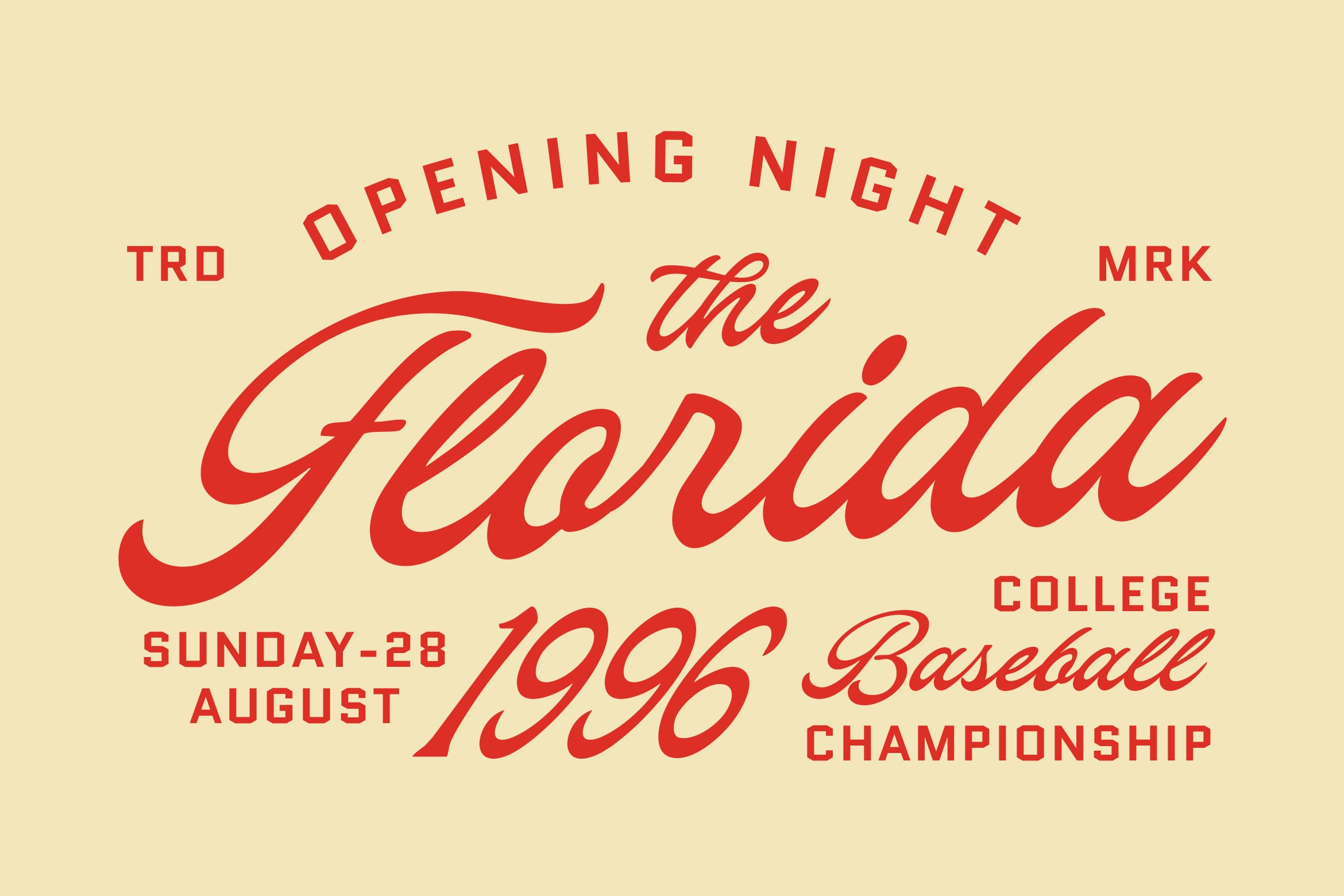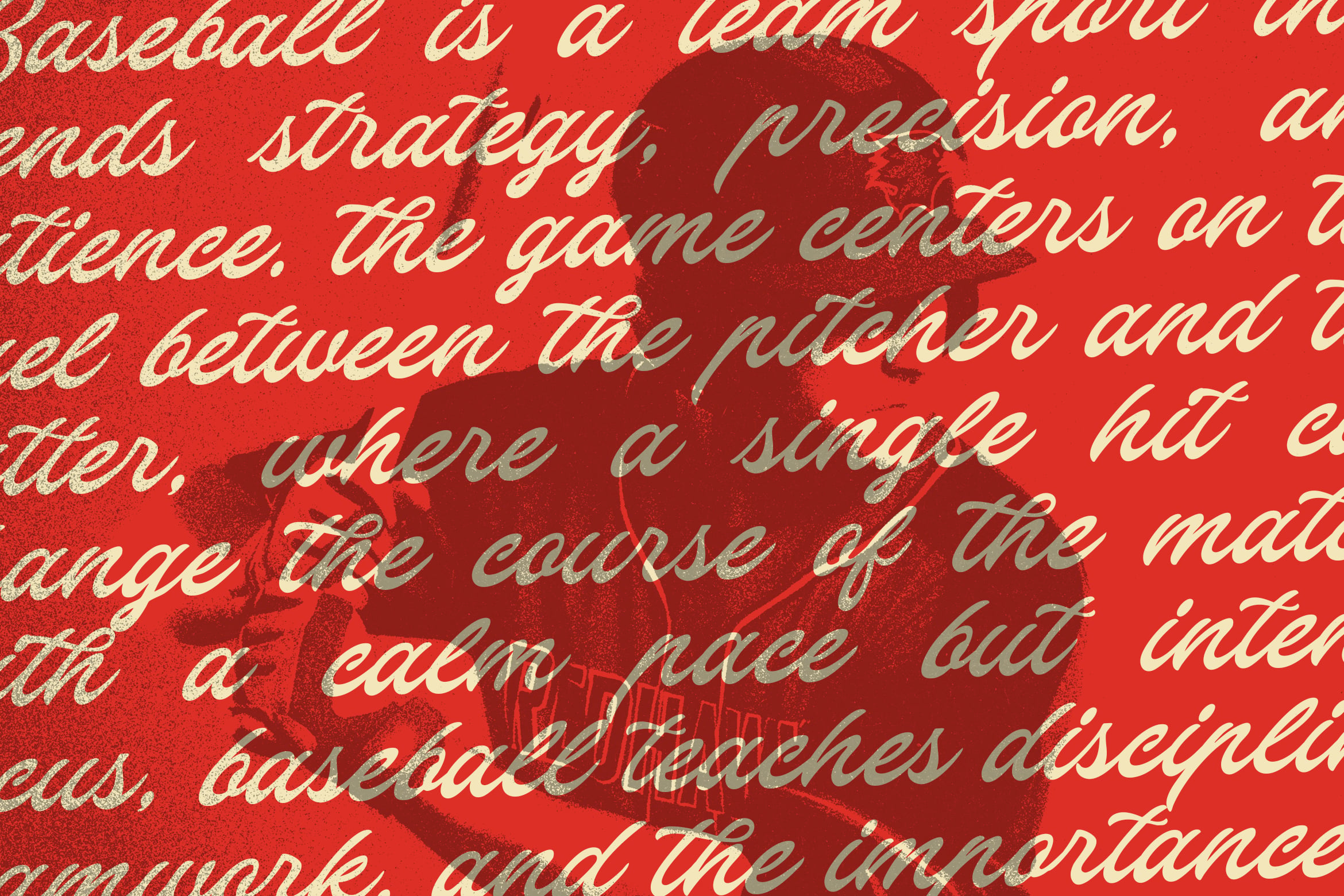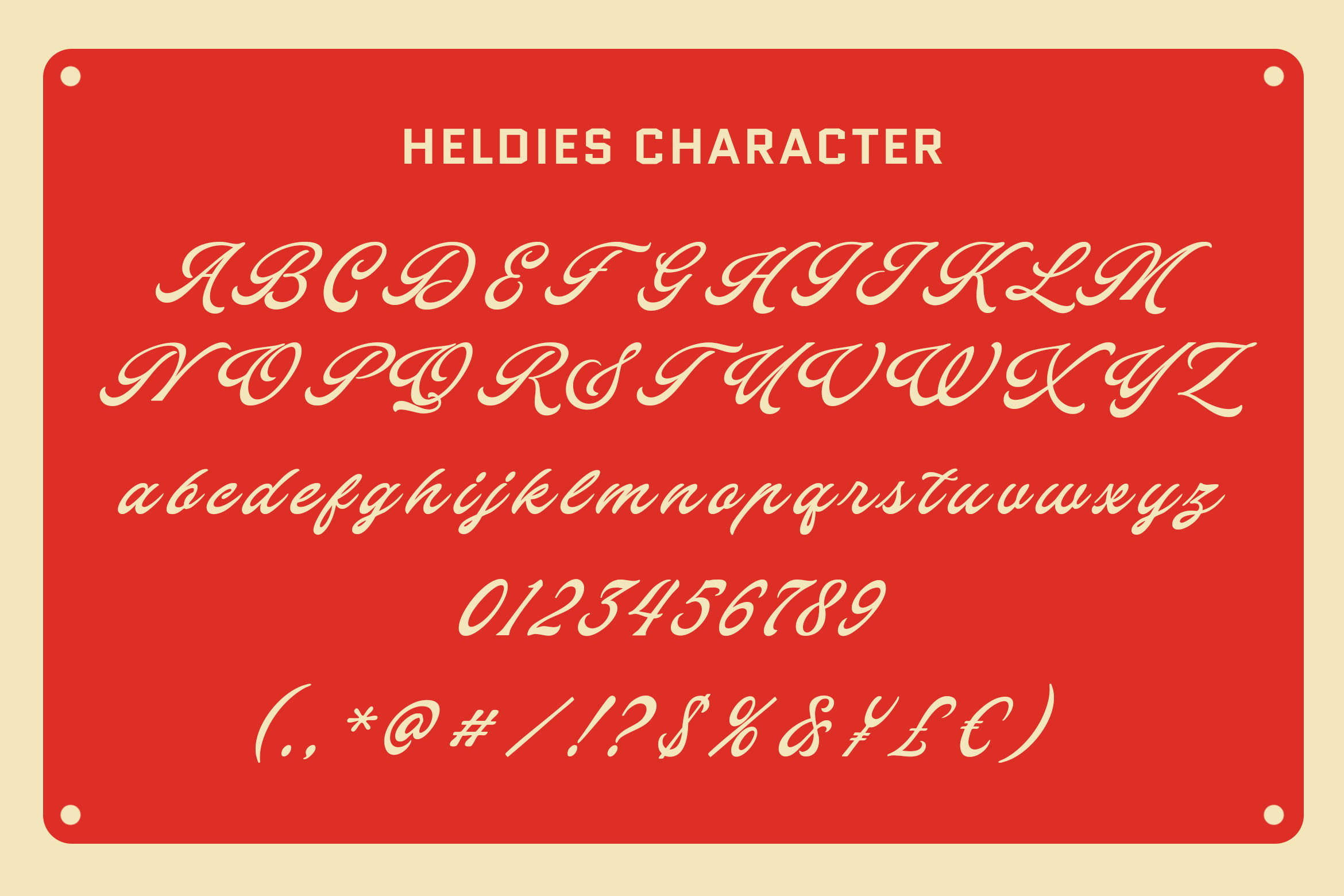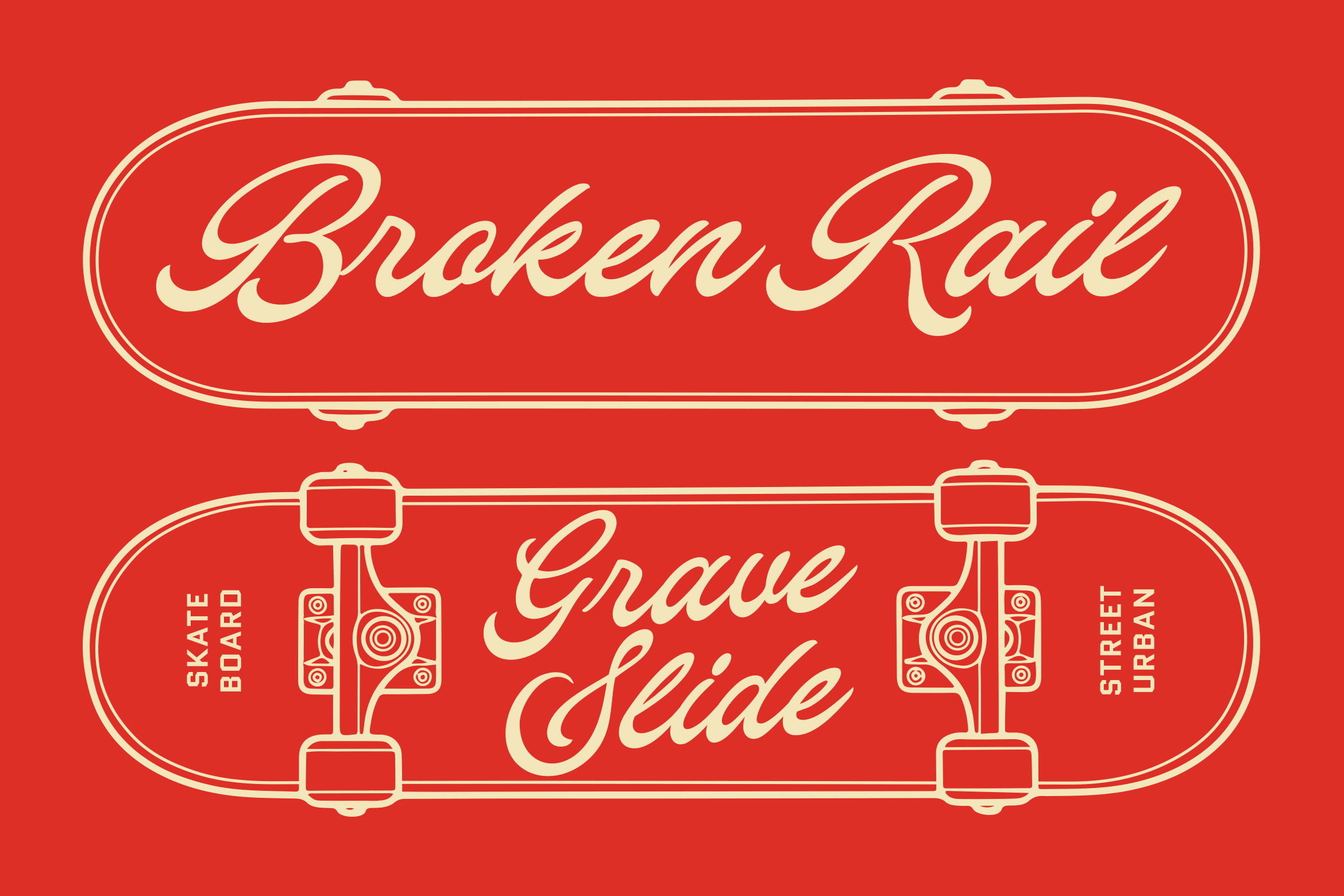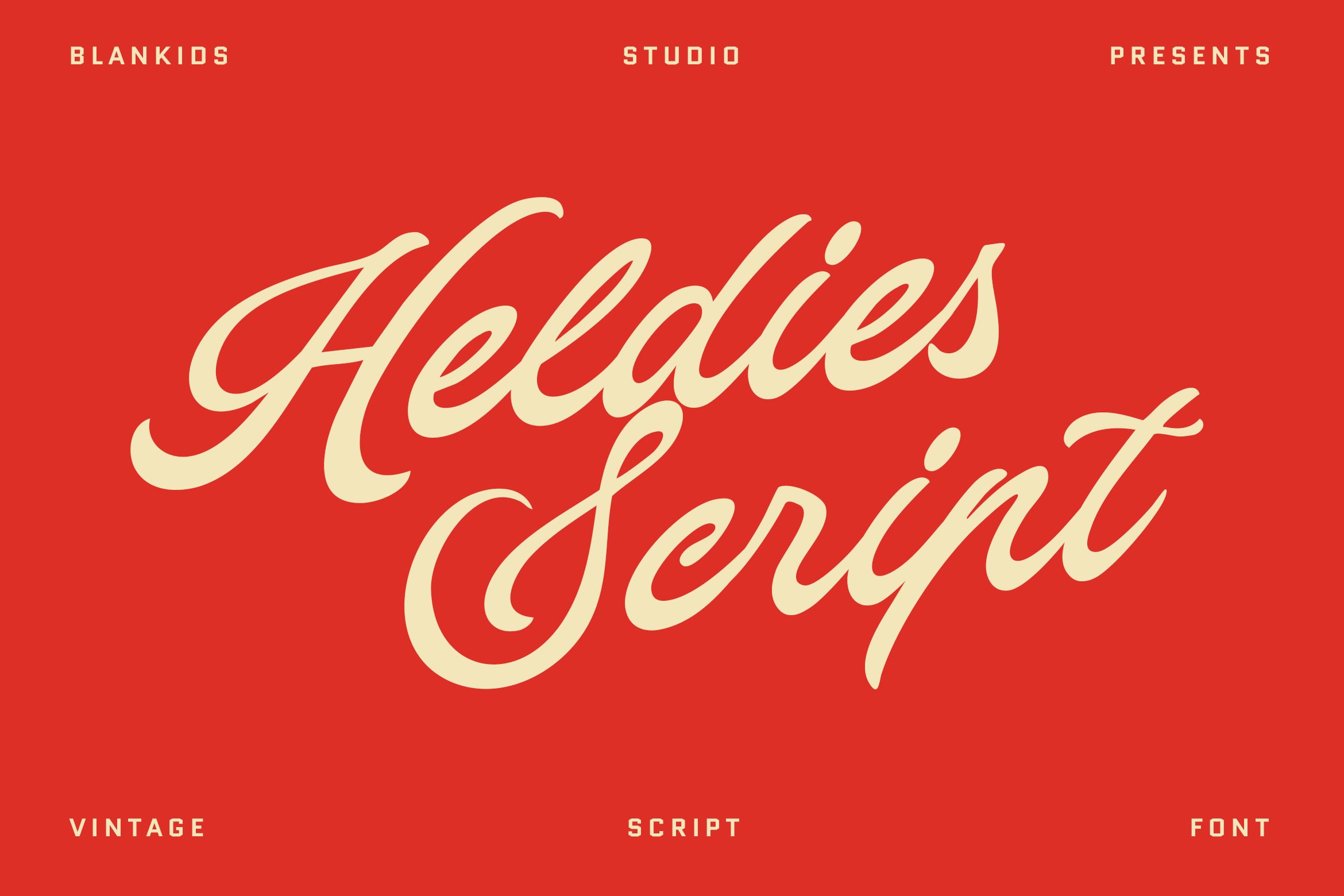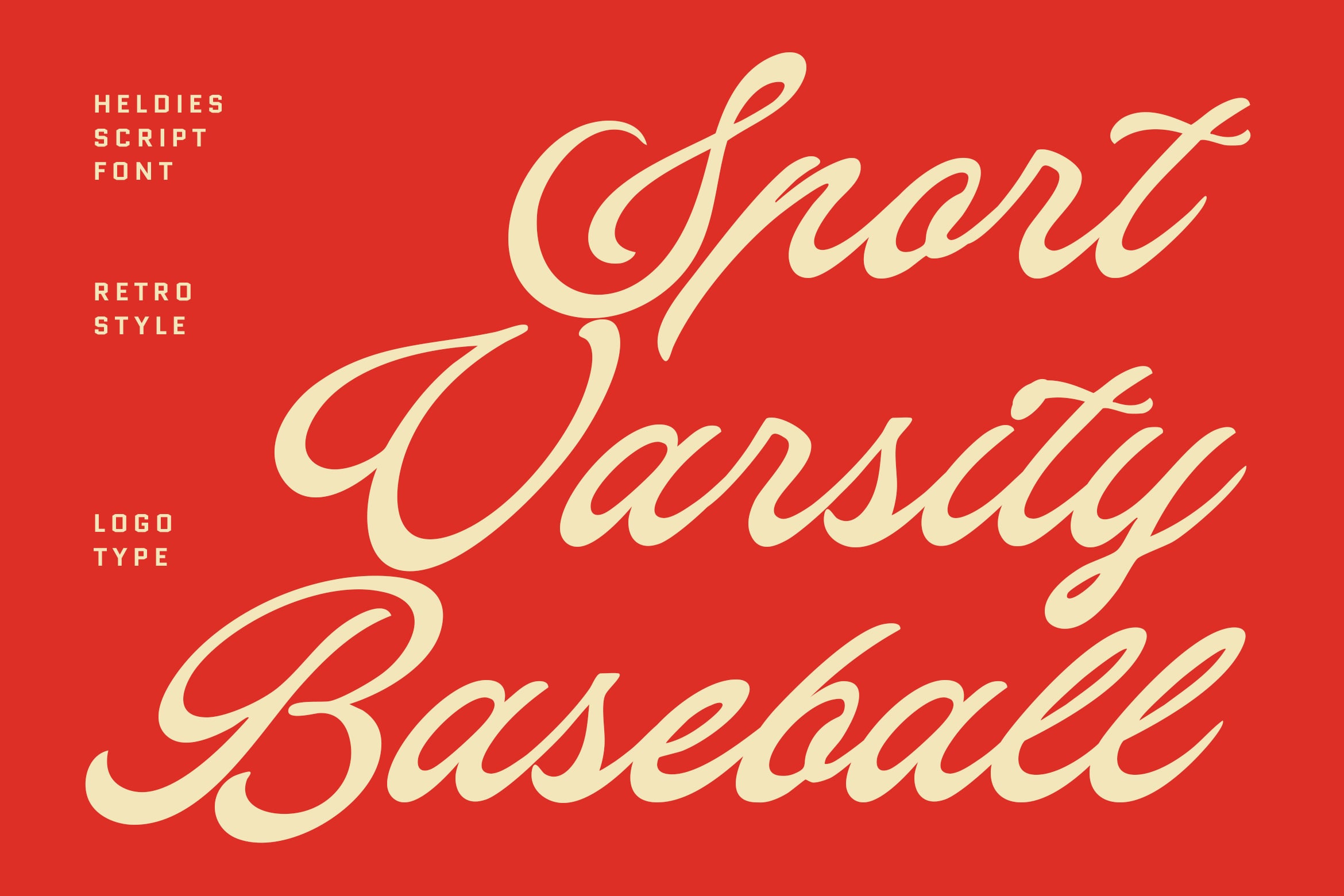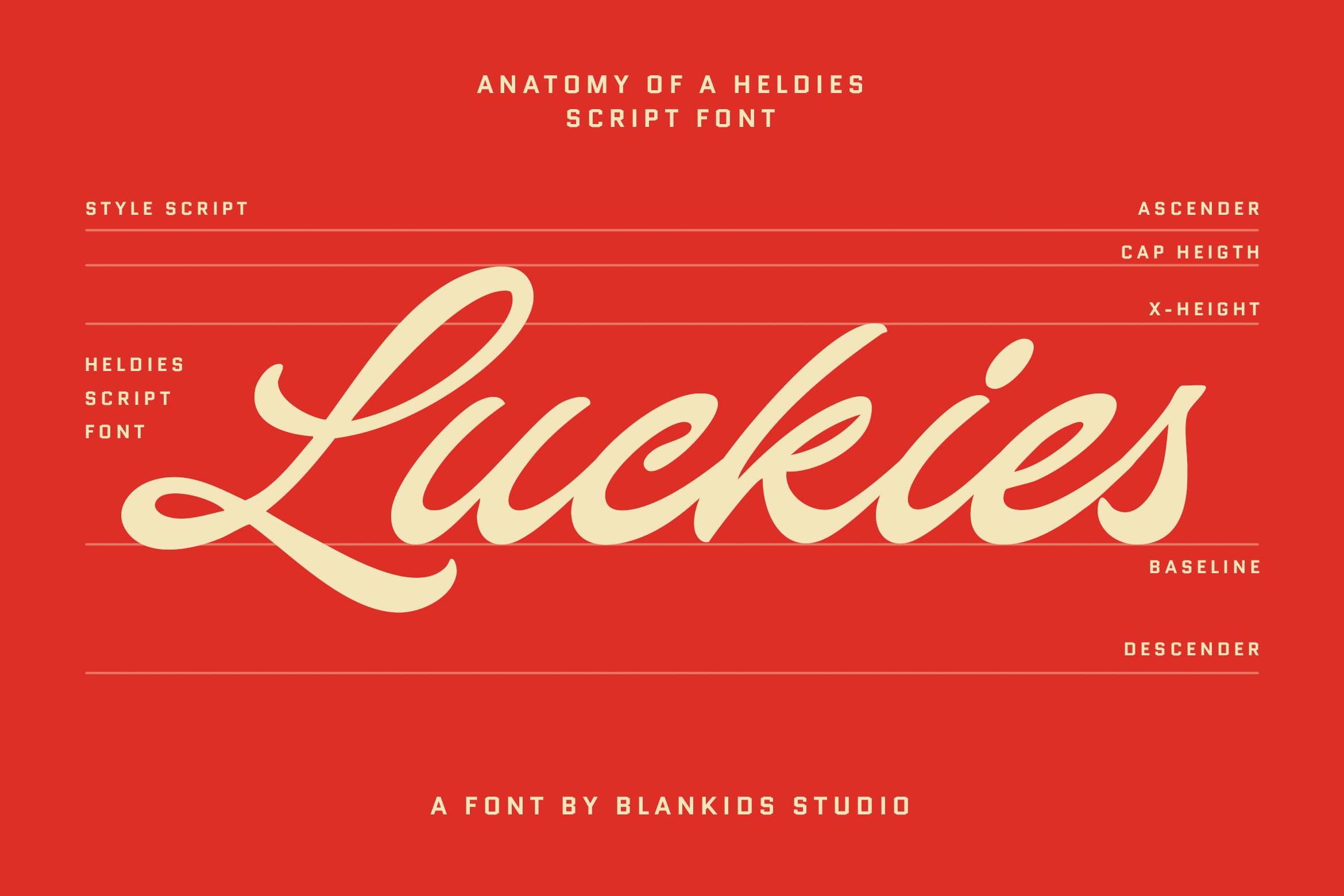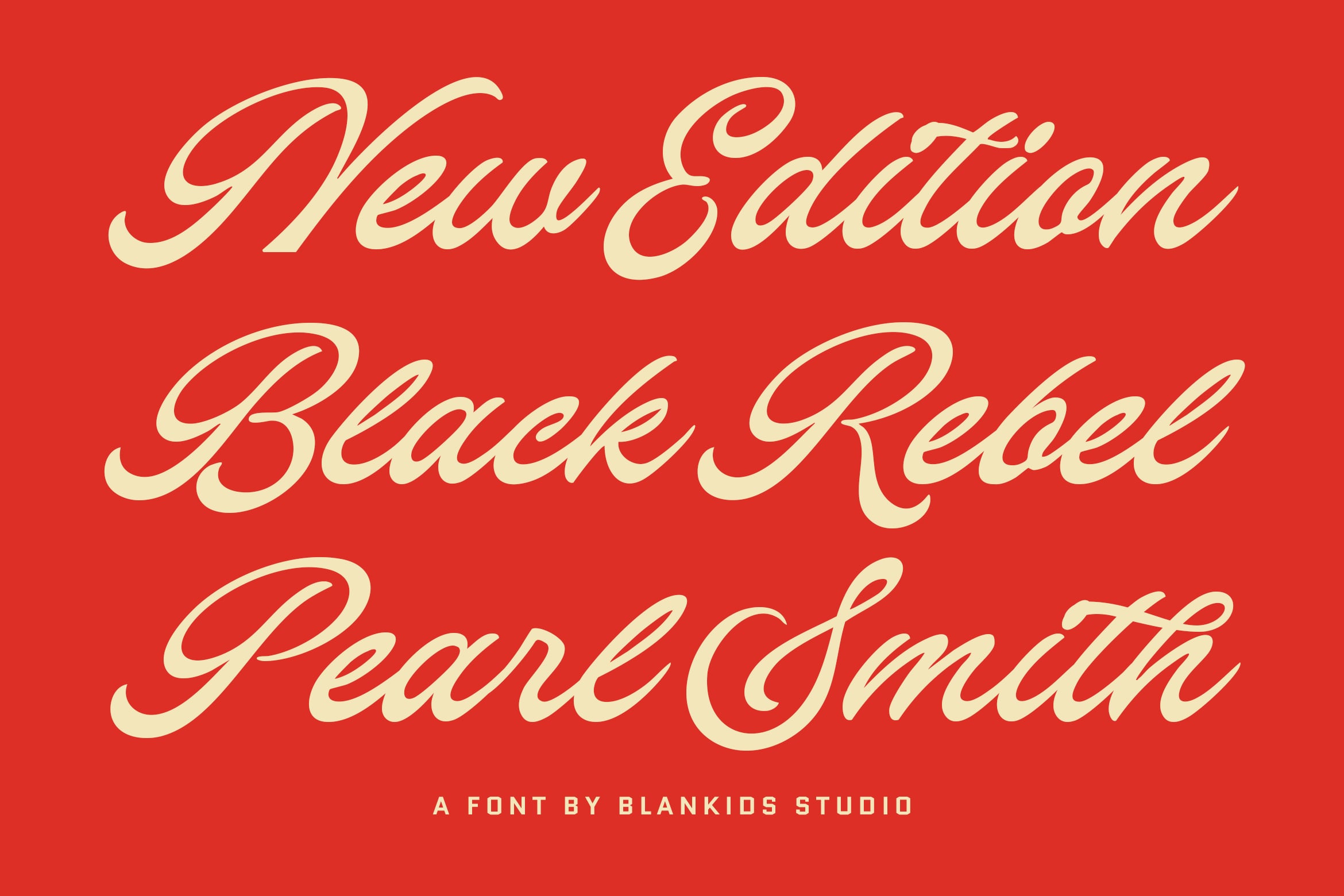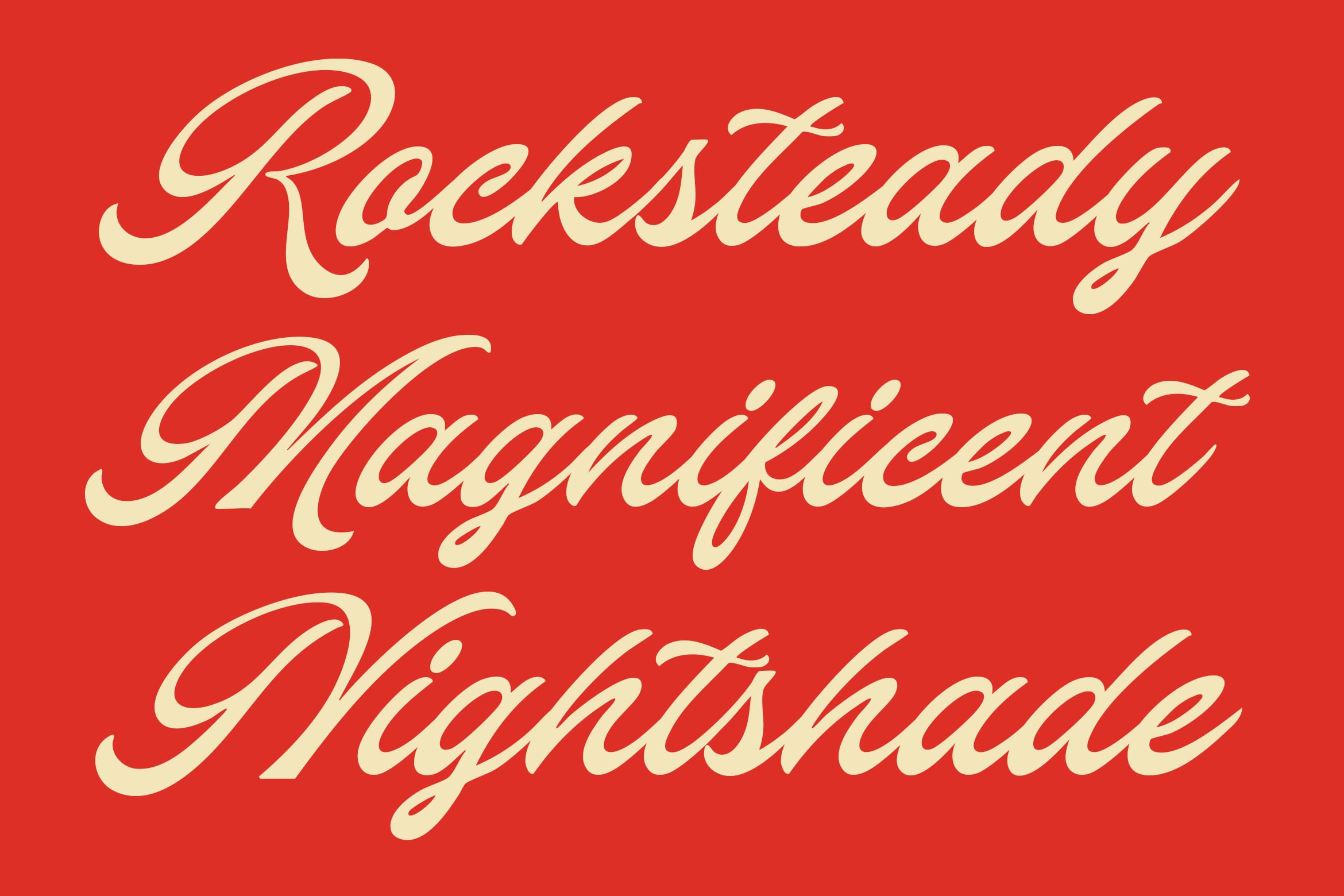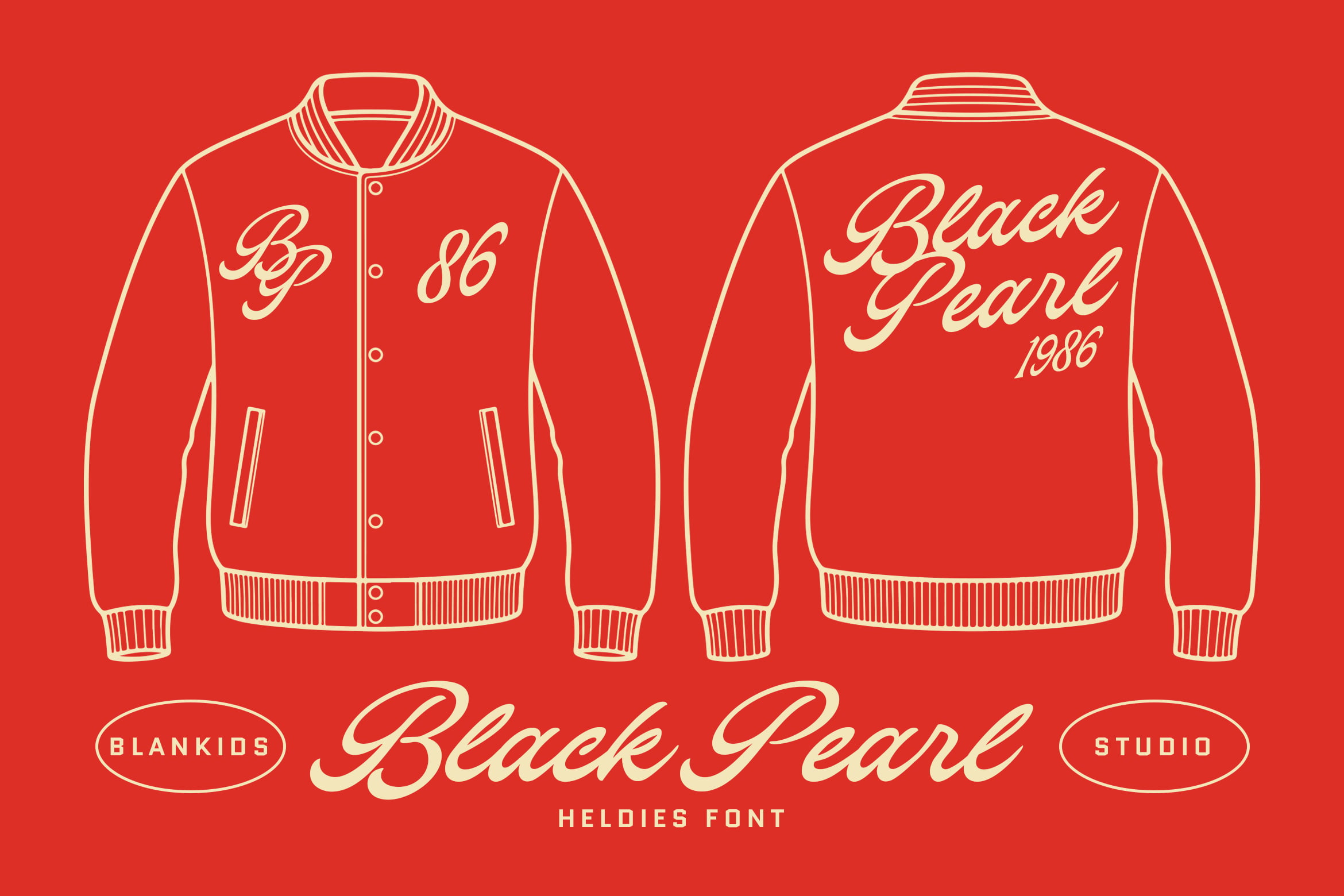
Heldies Script Font inspired retro script designed to bring warmth, elegance, and personality into your designs. With smooth curves, flowing strokes, and classic letterforms,..Heldies captures a nostalgic feel while staying versatile for modern creative projects.
This script font is carefully crafted to look natural and expressive, making it perfect for branding, logos, packaging, posters, social media, and editorial designs. Its balanced contrast and clean readability allow it to stand out beautifully both in large display use and shorter text applications.
Heldies Script Font works seamlessly across digital and print projects, giving your designs a handcrafted, retro, and authentic look without sacrificing clarity.